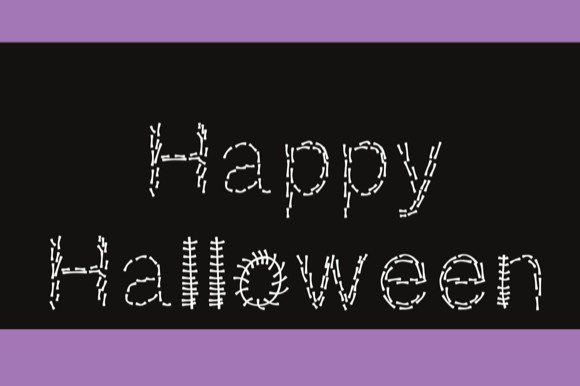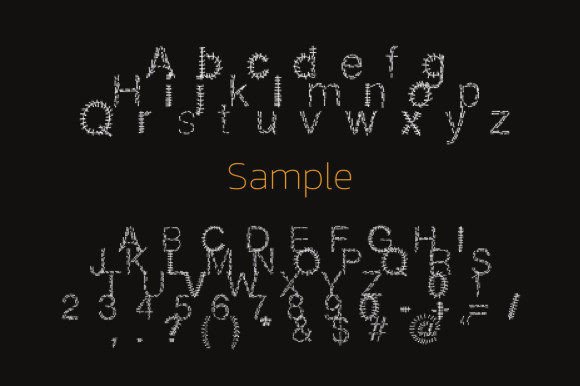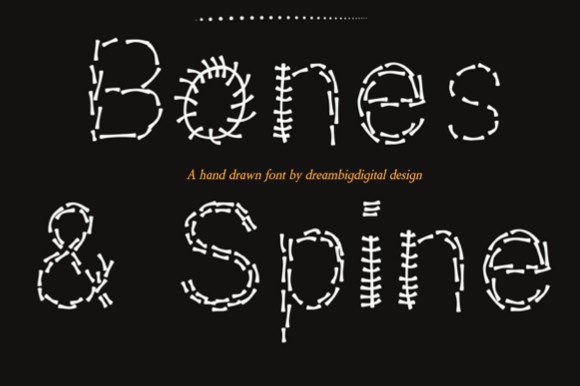
Bones and Spine Font: The Ultimate Halloween Decorative Font
As the spookiest season of the year approaches, designers and crafters are on the lookout for the perfect font to add a touch of chill and eeriness to their Halloween-themed projects. Look no further than the Bones and Spine font, a playful and decorative handwritten font that’s sure to bring the house down. In this article, we’ll dive into the details of this fantastic font and explore its features, uses, and benefits.
What is Bones and Spine Font?
Bones and Spine is a unique and creative font that’s specifically designed for the Halloween season. This handwritten decorative font is packed with lots of bones and spines, making it the perfect addition to any spooky project. The font’s playful and eerie design is sure to capture the essence of Halloween, adding a touch of whimsy and fun to your designs.
Key Features of Bones and Spine Font
- Playful and decorative design: The Bones and Spine font features a playful and decorative design that’s perfect for Halloween-themed projects.
- Handwritten style: The font has a handwritten style that gives it a personal and unique touch.
- Lots of bones and spines: The font is packed with lots of bones and spines, making it a great choice for Halloween-themed projects.
Uses of Bones and Spine Font
The Bones and Spine font is perfect for a wide range of Halloween-themed projects, including:
- Halloween party invitations: Create spooky and eye-catching invitations that will set the tone for your Halloween party.
- Halloween-themed crafts: Add a touch of eeriness and whimsy to your Halloween-themed crafts, such as pumpkin carvings, ghostly decorations, and spooky centerpieces.
- Social media posts: Use the Bones and Spine font to create spooky and engaging social media posts that will grab the attention of your followers.
- Halloween-themed website designs: Add a touch of Halloween spirit to your website design with the Bones and Spine font.
Benefits of Using Bones and Spine Font
Using the Bones and Spine font can bring a range of benefits to your Halloween-themed projects, including:
- Unique and creative design: The font’s unique and creative design will help your projects stand out from the crowd.
- Perfect for Halloween-themed projects: The font is specifically designed for Halloween-themed projects, making it a great choice for anyone looking to add a touch of spookiness to their designs.
Tips for Using Bones and Spine Font
Here are a few tips for using the Bones and Spine font:
- Use it sparingly: Use the font sparingly to add a touch of eeriness and whimsy to your designs.
- Experiment with different colors: Experiment with different colors to find the perfect combination for your Halloween-themed project.
- Pair it with other fonts: Pair the Bones and Spine font with other fonts to create a unique and eye-catching design.
In conclusion, the Bones and Spine font is a fantastic choice for anyone looking to add a touch of spookiness and whimsy to their Halloween-themed projects. With its playful and decorative design, handwritten style, and lots of bones and spines, this font is sure to bring the house down. Whether you’re a designer or crafter, the Bones and Spine font is a great addition to your font collection.